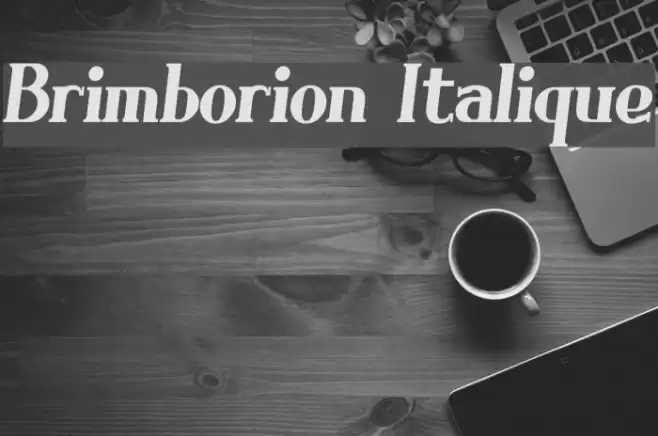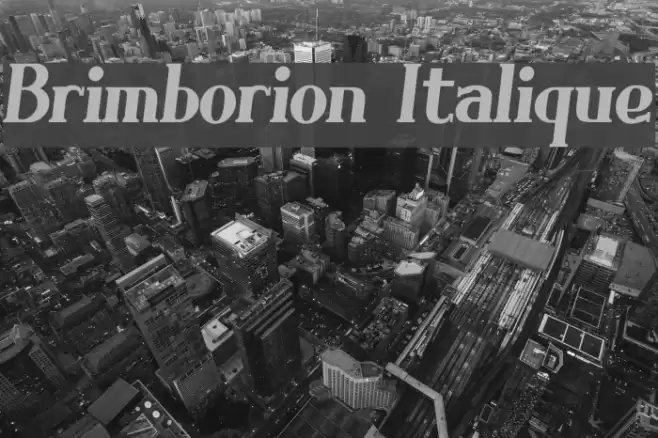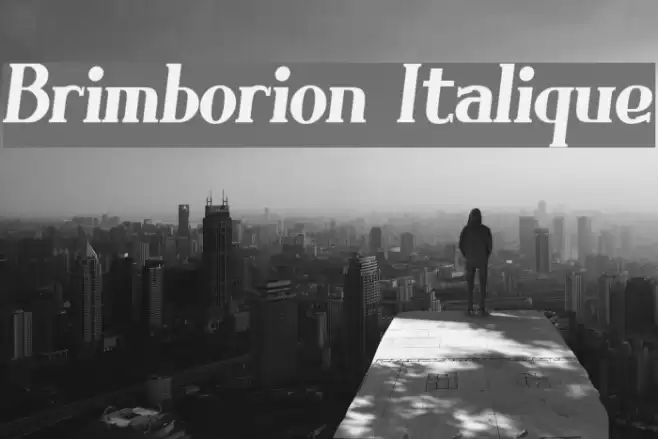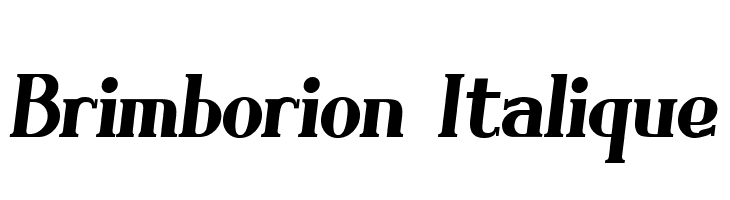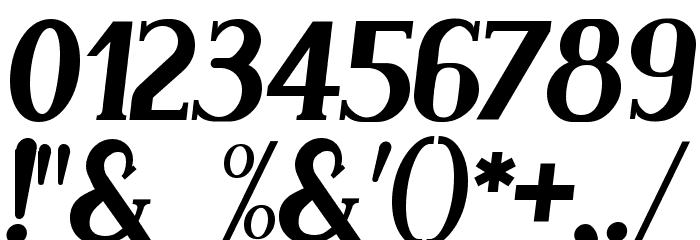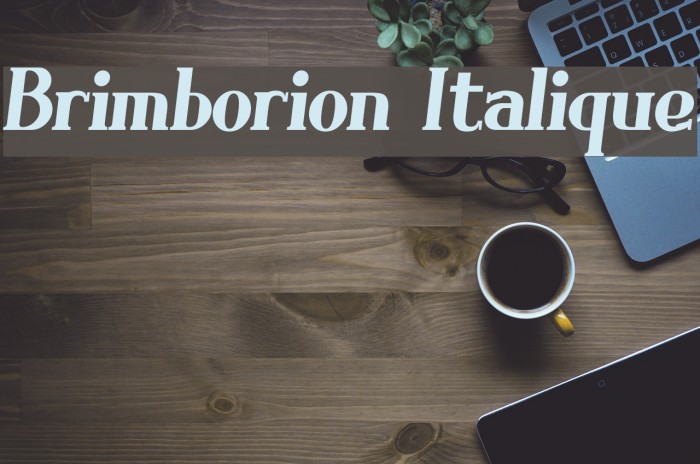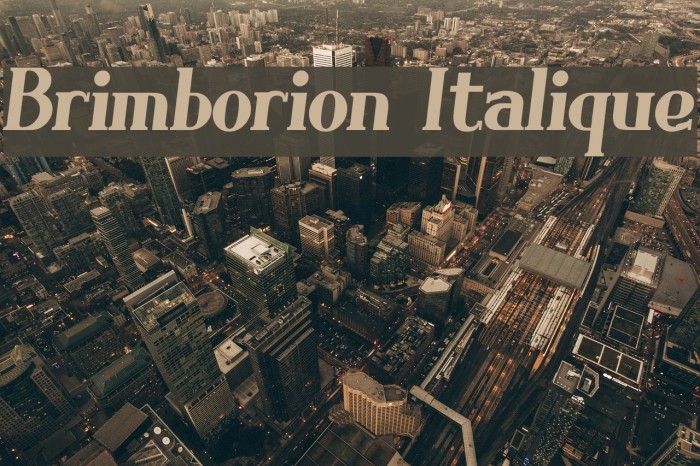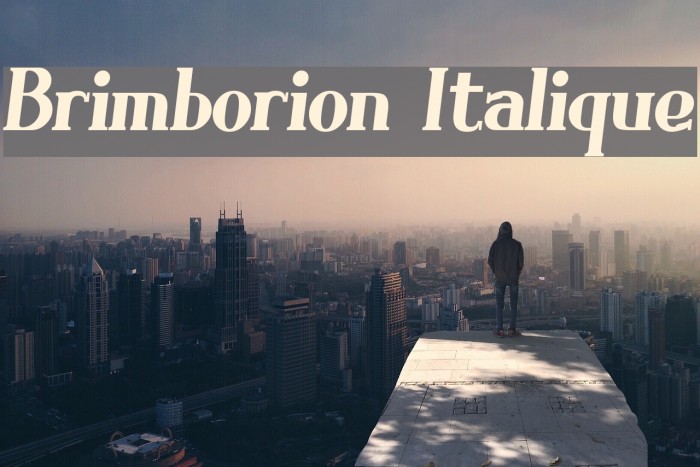
Brimborion Italique Font
Brimborion Italique Description
This font exhibits a dynamic and elegant style with a pronounced italic slant, giving it a sense of motion and sophistication. The characters are well-defined with a moderate contrast between thick and thin strokes, enhancing readability while maintaining a stylish appearance. The uppercase letters are bold and commanding, while the lowercase letters have a graceful flow. The numerals are clear and distinct, making them suitable for various applications. Special characters are thoughtfully designed to complement the overall aesthetic. This font is versatile, suitable for both formal and creative projects.
An elegant italic font with dynamic strokes and moderate contrast from Uncategorized fonts.
- Proposed Projects: Ideal for branding, editorial design, invitations, and elegant packaging.
- Overall Style: Elegant
- Use Case: Headlines, Logos, Invitations